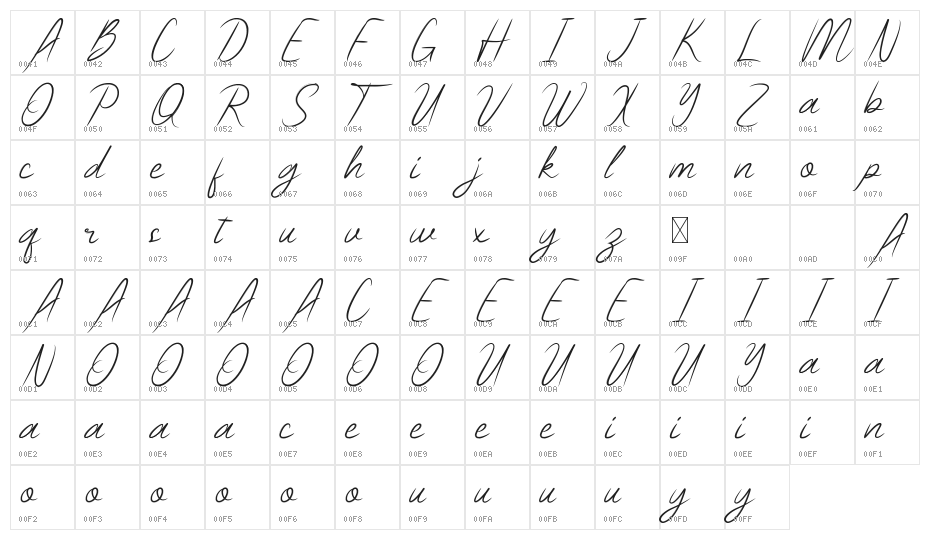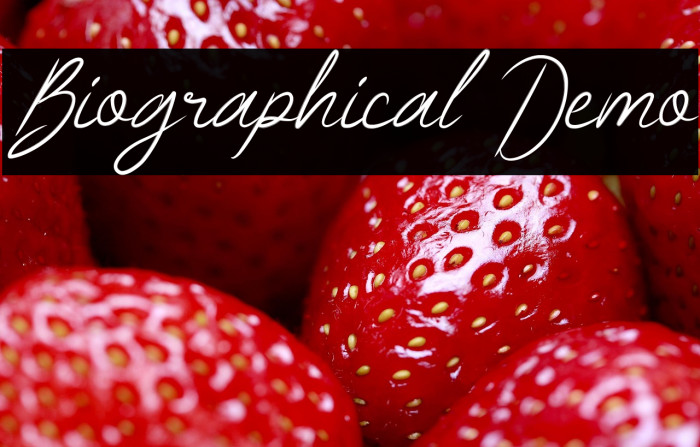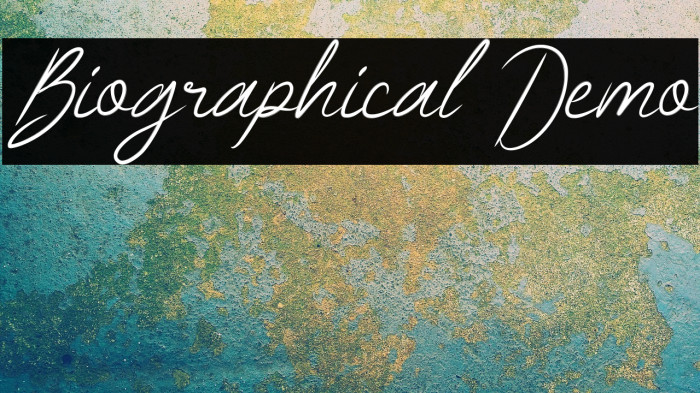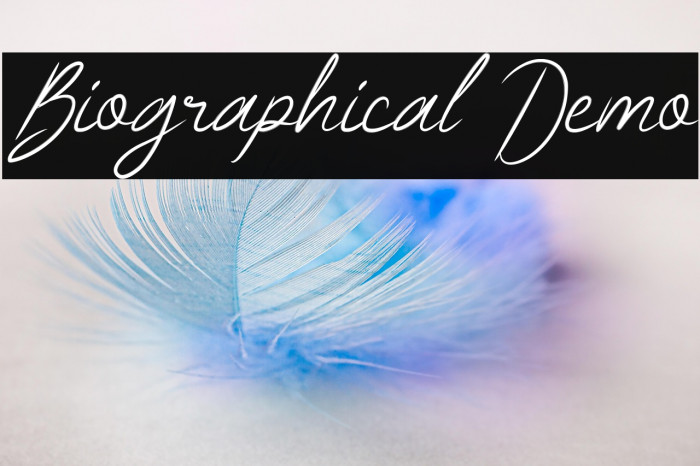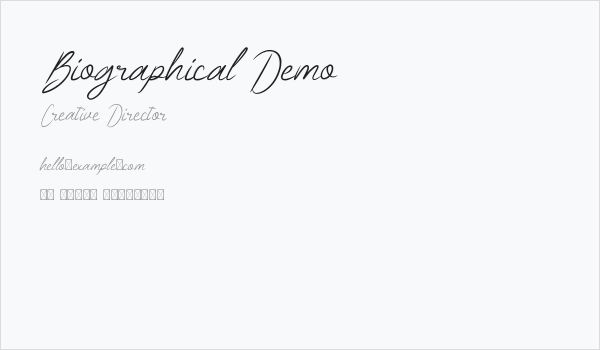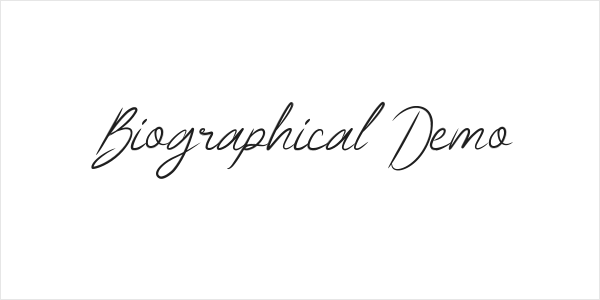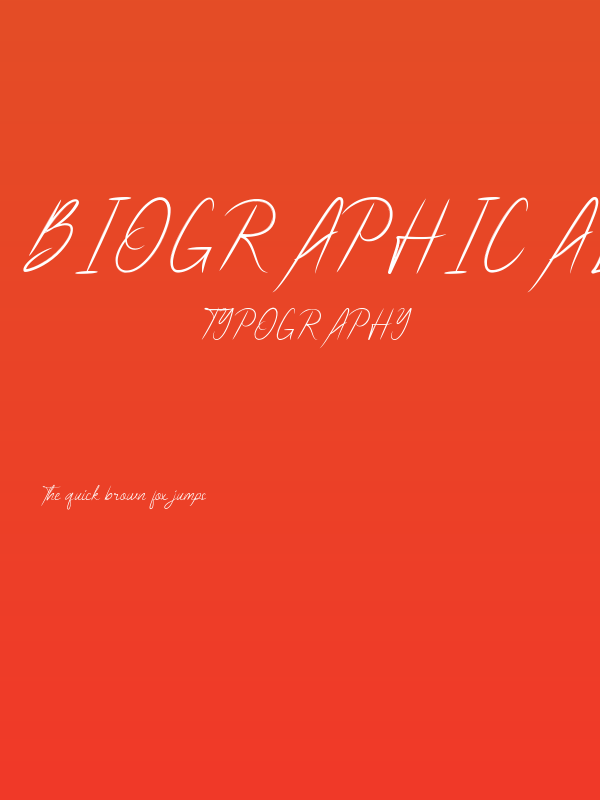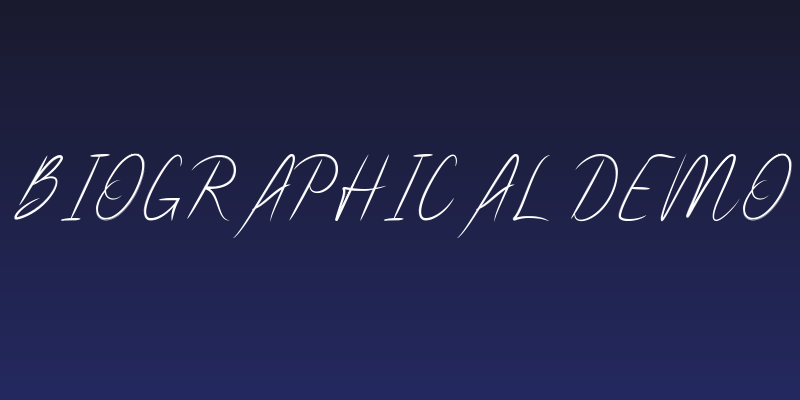
Biographical Demo Font
Biographical Demo Description
A flowing, elegant script font with a handwritten style, featuring smooth, connected strokes and a slight slant.
| Overall Style | Elegant, Handwritten |
| Proposed Projects | Invitations, greeting cards, personal branding. |